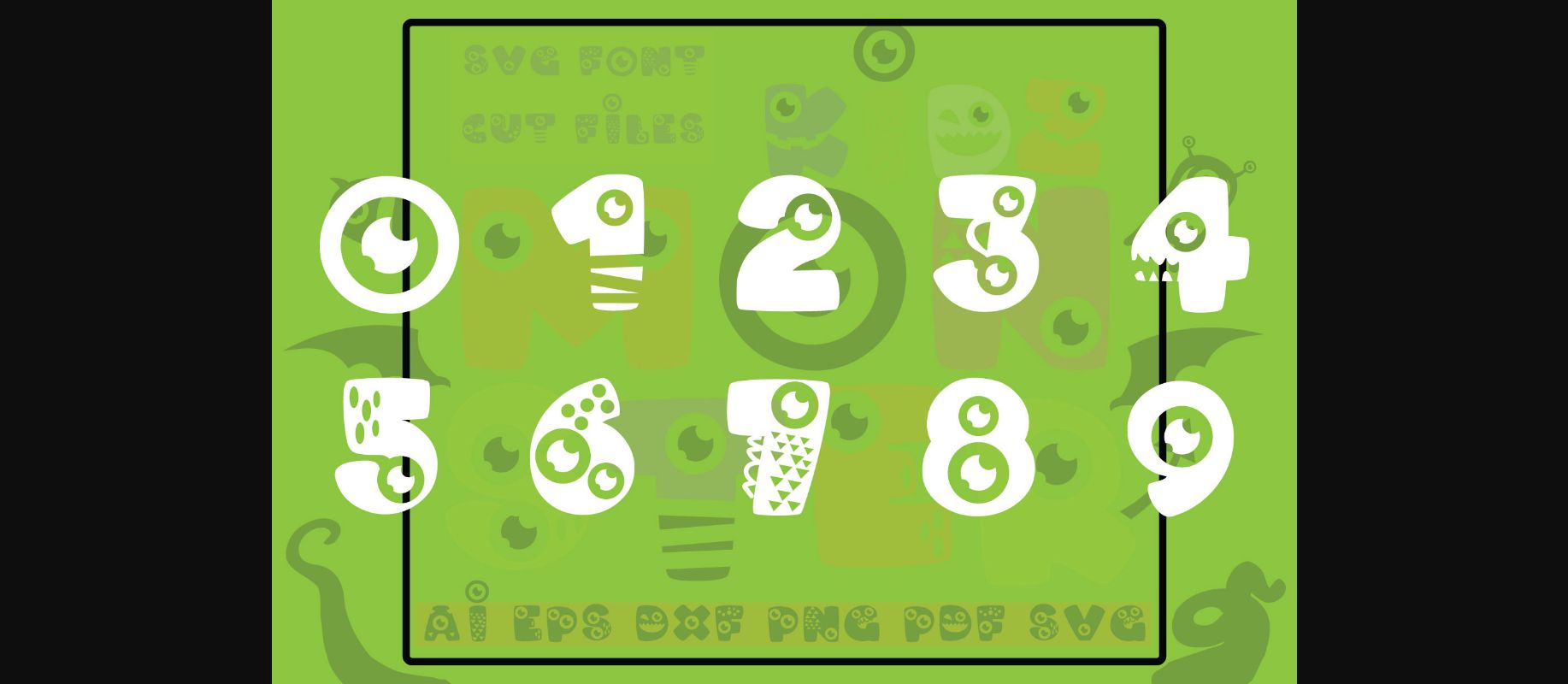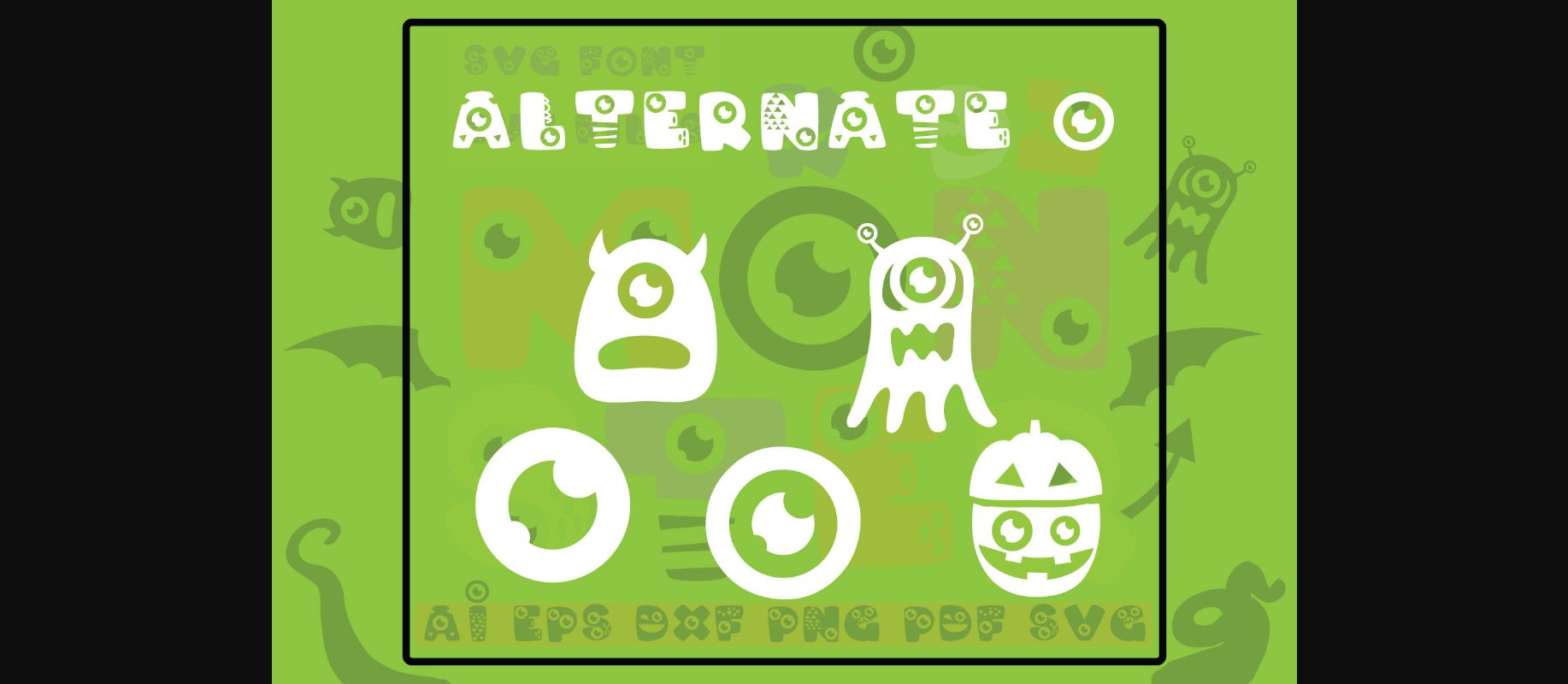
About Monster Kids Font
Monster kids is a bold and incredibly cool decorative font. It can be used for various design ideas, particularly those related to children, cartoons, and games. Have fun with this beautiful font and explore its endless variations!